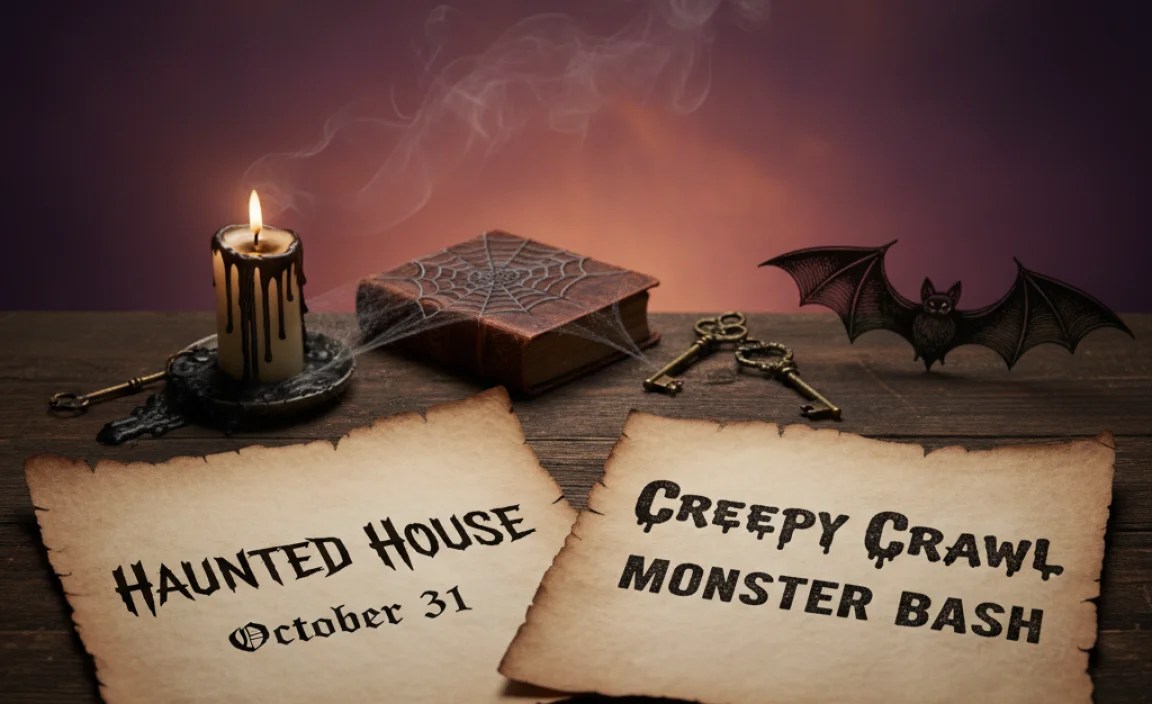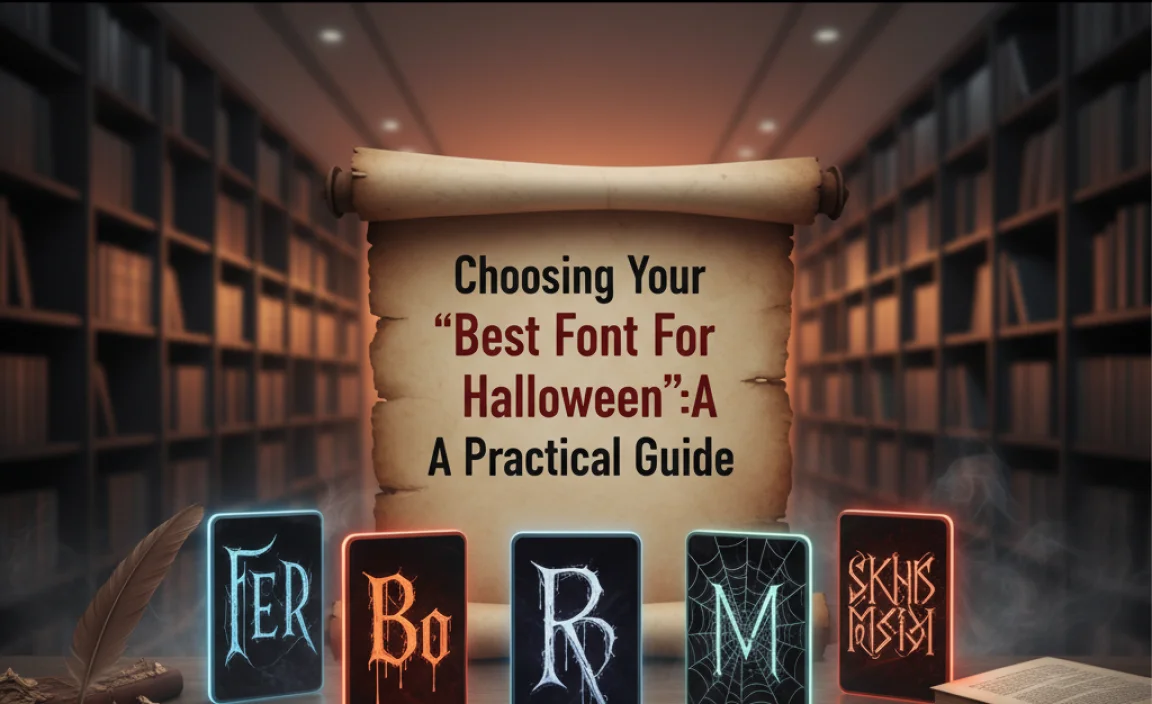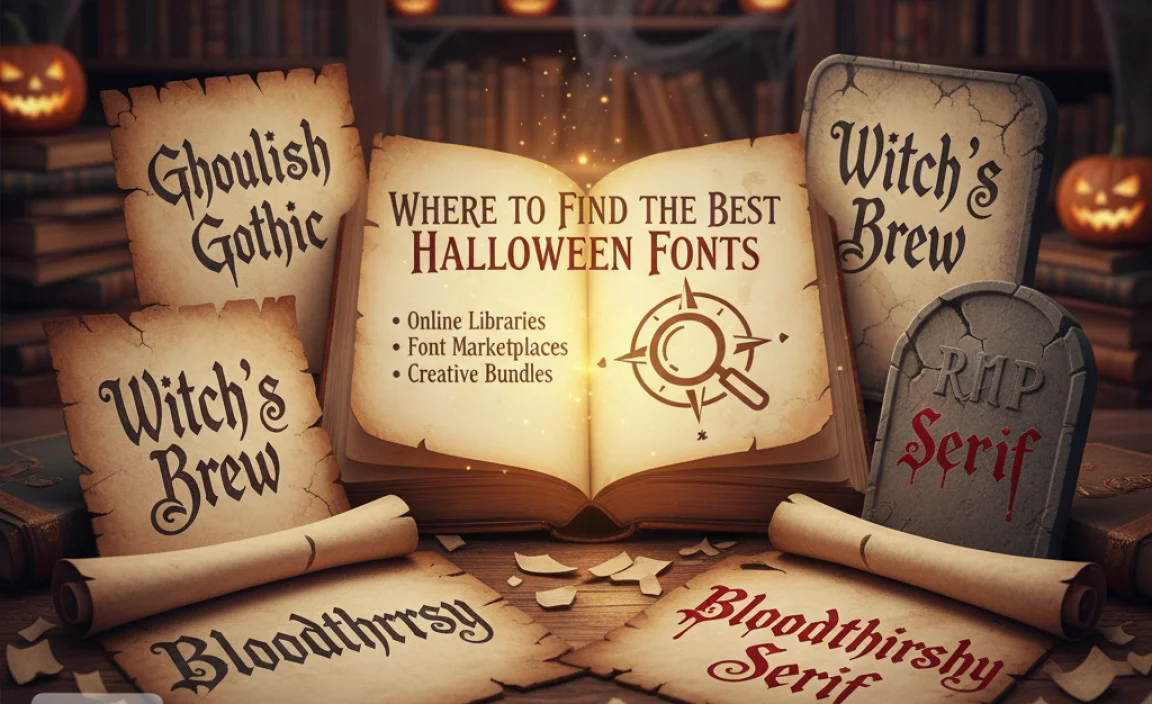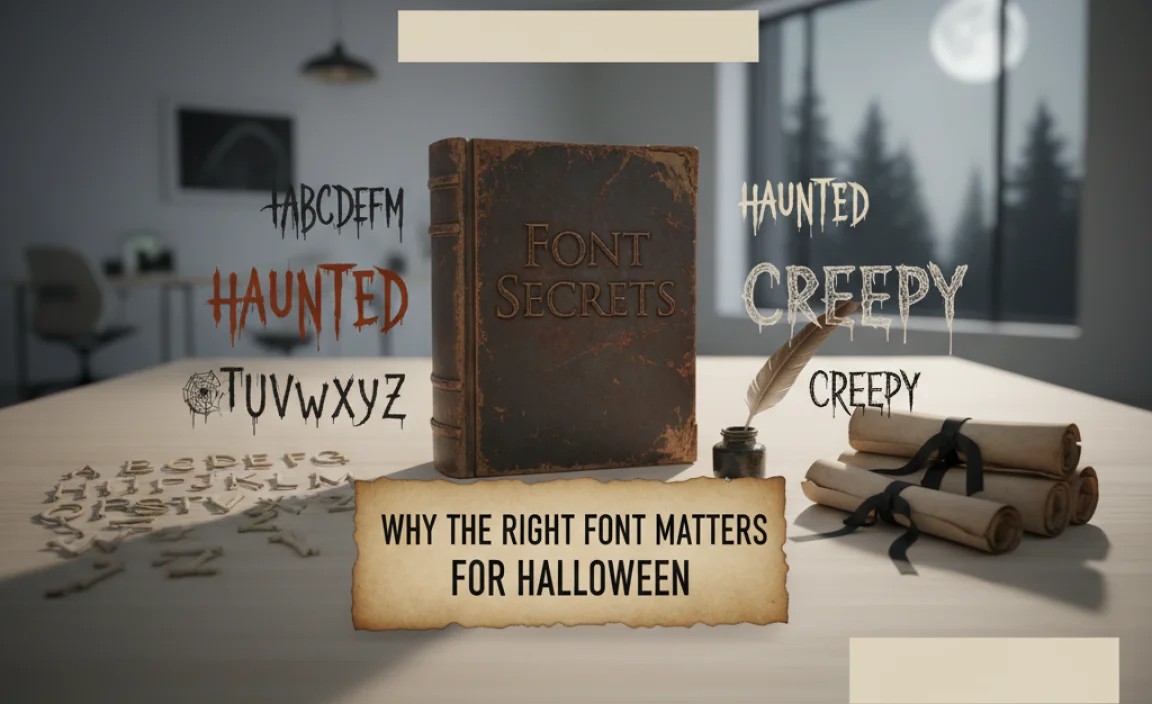
The best fonts for Halloween are those that evoke a spooky, eerie, or playful mood, balancing readability with thematic relevance. Consider gothic, distressed, brush, or spooky script styles for a memorable and impactful design that captures the spirit of the holiday.
Halloween is a season bursting with creativity and fright! From party invitations and spooky decorations to marketing campaigns and website designs, choosing the right font is like picking the perfect costume for your message. But with so many options, finding that ideal “scary” yet readable font can feel like navigating a haunted house in the dark. Don’t worry! We’re here to guide you through the creepiest, coolest, and most essential fonts that will make your Halloween projects truly unforgettable. Get ready to discover fonts that scream Halloween!
Why the Right Font Matters for Halloween
Think about it: a well-chosen font can instantly transport your audience to a world of ghosts, goblins, and ghouls. It’s not just about letters; it’s about setting a mood, telling a story, and creating an experience. For Halloween, this means finding fonts that are visually striking and embody the holiday’s unique blend of thrill and fun. Whether you need something terrifyingly traditional or playfully spooky, the right typeface is your secret weapon.
Key Characteristics of Great Halloween Fonts
- Thematic Relevance: Does it look like it belongs in a haunted mansion? Think cobwebs, dripping blood, or cracked tombstones.
- Readability: Even the scariest font needs to be understood. A jumbled mess won’t get your message across.
- Versatility: Can it work for both headlines and smaller text? A good font has a range.
- Impact: Does it grab attention and make people feel the Halloween spirit?
Exploring Different Font Styles for That Spooky Vibe
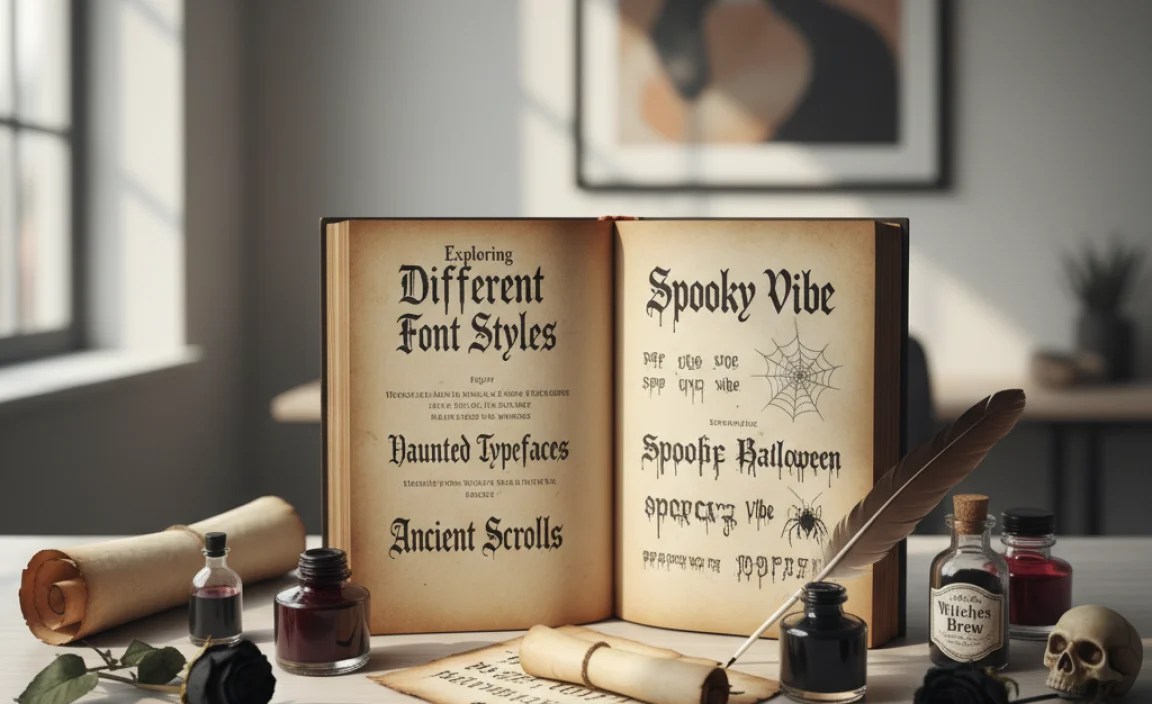
Halloween invites a wide range of creative expression. The “best” font for Halloween often depends on the specific tone you want to achieve. Let’s dive into the most popular and effective font categories:
1. Gothic & Blackletter Fonts: The Classics
These fonts are the undisputed kings and queens of vintage horror. With their sharp serifs, dramatic thick and thin strokes, and historical roots, they immediately evoke a sense of age, mystery, and dark academia. Think old castles, ancient curses, and shadowy figures.
Why they work for Halloween:
- Atmosphere: Inherently dramatic and gothic, perfect for haunted houses and horror themes.
- Authority: They feel established and serious, lending gravitas to your design.
- Nostalgia: Connects to classic horror literature and early film.
When to use them:
- Event posters (haunted house attractions, costume parties).
- Horror-themed book covers or movie titles.
- Branding for businesses leaning into gothic or mysterious aesthetics.
Popular Gothic & Blackletter Picks:
- Old English Text MT: A widely available classic that instantly screams “old spooky.”
- Blackletter: Simple and direct, offering that unmistakable gothic feel.
- Uncial (a related style): While not strictly blackletter, its rounded, ancient look can also lend a mystical, slightly eerie feel.
2. Distressed & Grungy Fonts: The Weathered Terrors
These fonts look like they’ve been through the wringer – scratched, smudged, cracked, or faded. They bring a sense of decay, battle, or harsh reality, making them perfect for a more visceral, post-apocalyptic, or gritty Halloween theme.
Why they work for Halloween:
- Texture: Adds a tactile sense of age and wear, like an old tombstone or a tattered flag.
- Edginess: Great for modern horror, zombie themes, or anything with a rough edge.
- Character: Each imperfection tells a story, adding depth.
When to use them:
- Zombie-themed event flyers.
- Posters for B-movie horror.
- Designs that need to feel raw and authentic.
- Scrapbook or DIY Halloween decorations.
Popular Distressed & Grungy Picks:
- The Gallow Tree: A fantastic, free option with a decidedly creepy, wood-cut feel.
- Blood Crow: Offers a gritty, ink-splattered, and slightly menacing look.
- Cemetery: As the name suggests, this font looks like it belongs on a weathered grave marker.
3. Spooky Script & Handwritten Fonts: The Personal Haunts
Script and handwritten fonts can add a personal, often eerie touch. They can range from elegant and flowing to messy and frantic, mimicking a madman’s scrawl or a ghostly whisper.
Why they work for Halloween:
- Elegance with an Edge: Some script fonts offer a haunting elegance, perfect for gothic romance or haunted manor vibes.
- Unease: Messy, shaky, or dripping handwritten fonts can create a sense of panic or madness.
- Intimacy: Can make a message feel more direct and personal, like a direct warning.
When to use them:
- Halloween wedding invitations.
- “Beware” or warning signs.
- Labels for potion bottles or homemade treats.
- Creepy personal notes or diaries.
Yes! Many designers create fonts specifically for holidays like Halloween. These often incorporate thematic elements like pumpkins, ghosts, or spiderwebs directly into the letterforms or have styles that perfectly capture the spooky mood.
How can I test if a font is readable for my Halloween project?
Type out your critical text (like event times, dates, or locations) in the font. View it at the intended size and distance. Ask a few people unfamiliar with the design to read it for you. If they can quickly and clearly understand the information, it’s likely readable enough.</p